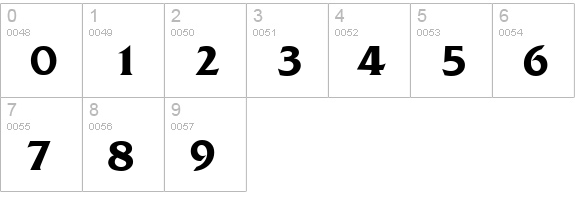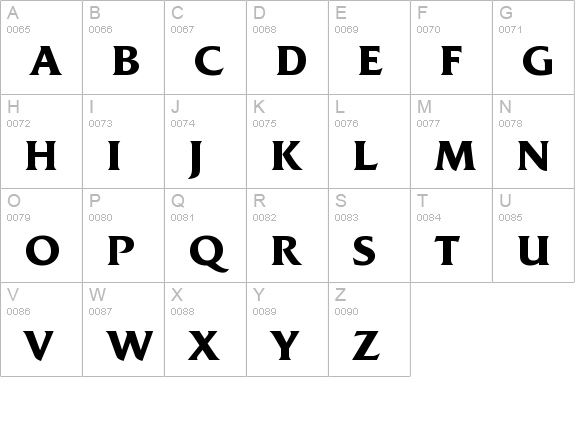
QuadratSerial-Bold is a strong, high-contrast variant in the QuadratSerial typeface family \xE2\x80\x94 well suited to headlines, attention-grabbing titles, and strong calls-to-action.
QuadratSerial-Bold font is a modern and versatile typeface that exudes strength and confidence. With its bold and striking design, this font is perfect for making a bold statement in any project. Whether you're designing a poster, logo, or website, QuadratSerial-Bold will help your text stand out and capture the attention of your audience. What's even better is that QuadratSerial-Bold is available for free download at FontsMarket.com. This means you can easily access this stylish font and use it in your projects without any cost. Don't miss out on the opportunity to elevate your designs with the bold and impactful QuadratSerial-Bold font. Download it now and unleash your creativity!